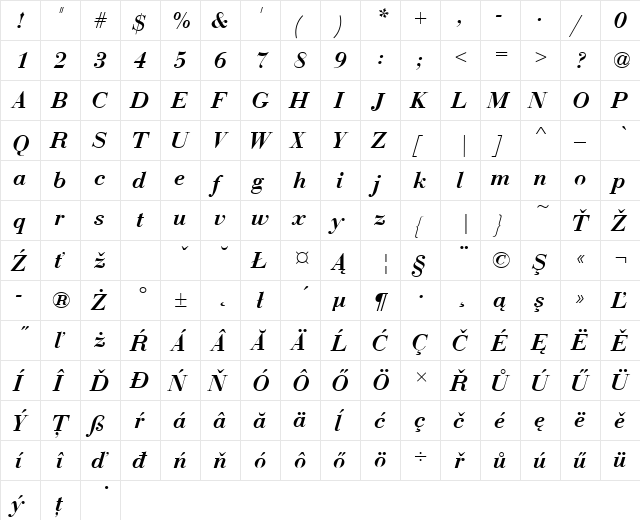
BauerBodDEEDemBol Italic
Design Context for BauerBodDEEDemBol Typeface
BauerBodDEEDemBol is a composed and adaptable typeface that performs quietly and consistently across a wide range of design contexts. Its italic angle brings a sense of urgency and motion to the letterforms.
Pro Tip: Try BauerBodDEEDemBol for annotation and caption copy alongside an upright companion — the contrast in angle creates a dynamic but ordered typographic system.